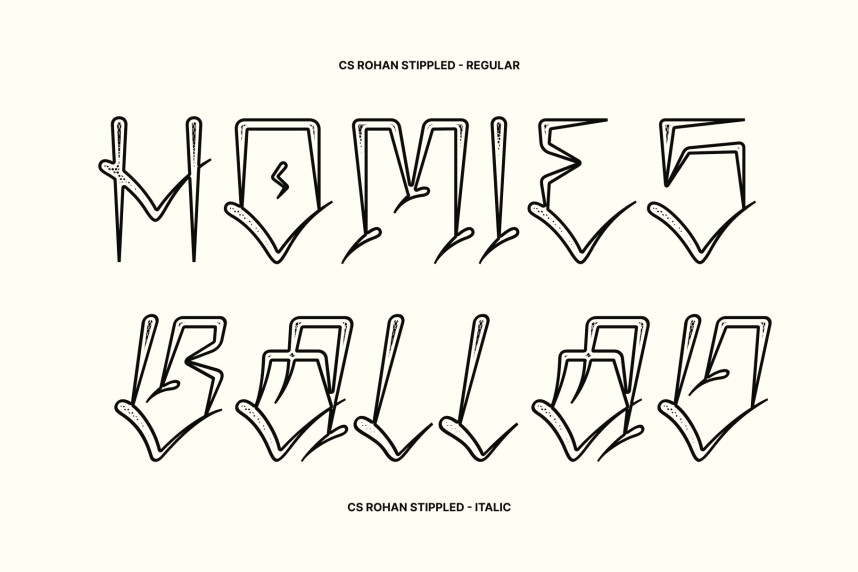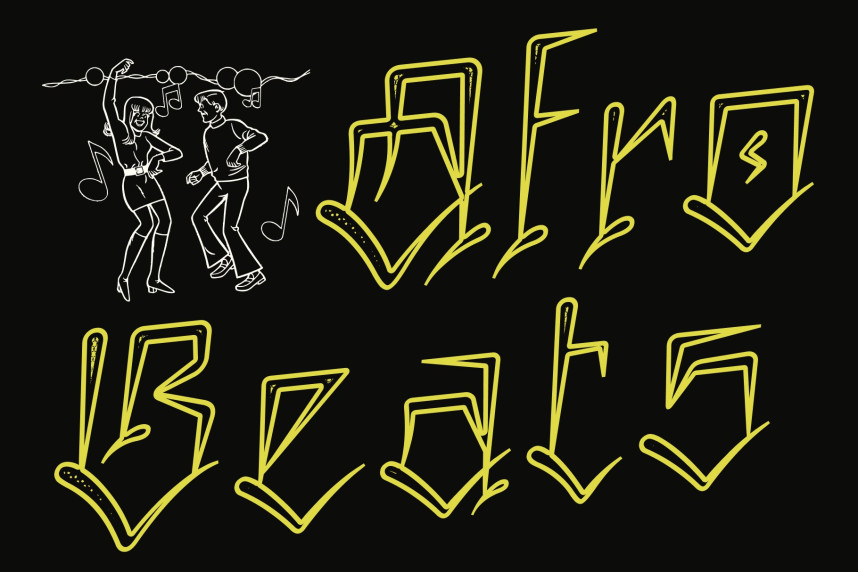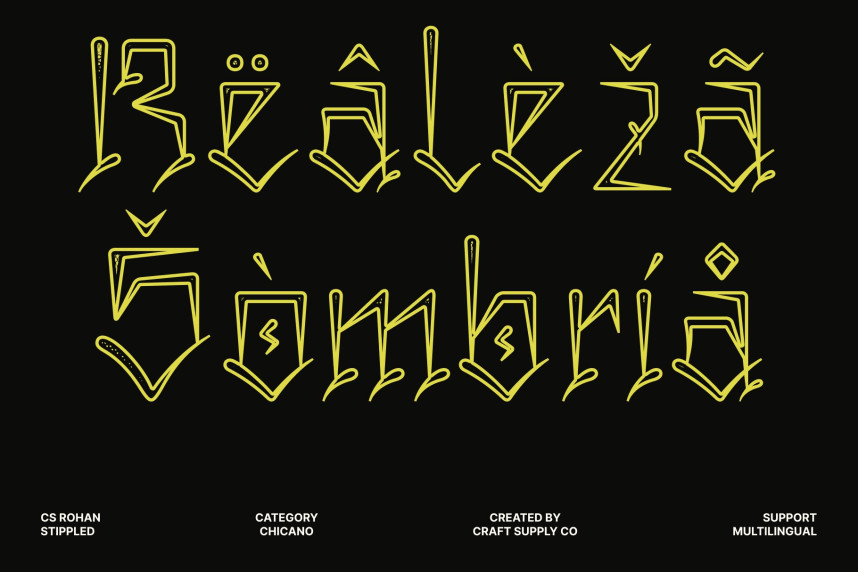
CS Rohan Stippled Font
CS Rohan Stippled Font – Chicano Graffiti Font
Bold, Funky, and Full of Urban Energy
This is a Chicano graffiti–inspired display font that radiates expressive movement and street-driven attitude. Built with heavy strokes, dramatic curves, and irregular shapes, this typeface captures the fearless spirit of urban lettering. The stippled texture enhances its handcrafted feel, giving every character depth, grit, and a tactile quality that makes typography feel alive and energetic.